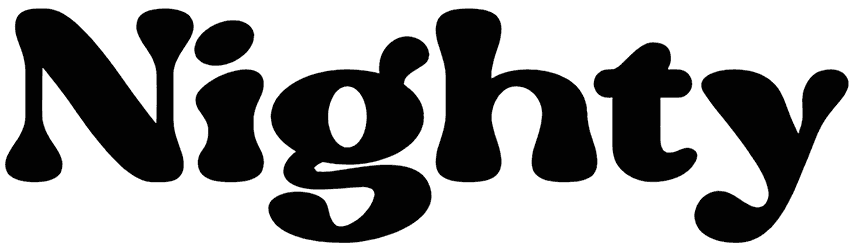
Nighty Font
Let’s append some vintage and bubbly mood to texts with a groovy font like Nighty. This fancy font doesn’t consist of numerals or punctuation but yet is a distinct pickup for your design. Set Nighty in your following creative projects, for instance, posters, apparel, mugs, or similar things, and make them winsome.